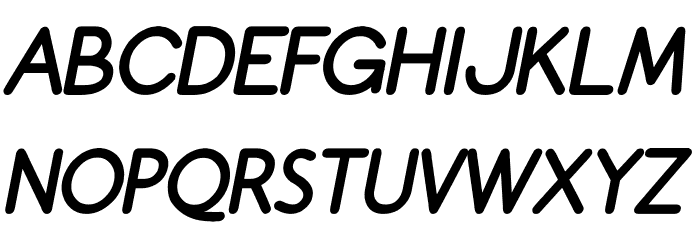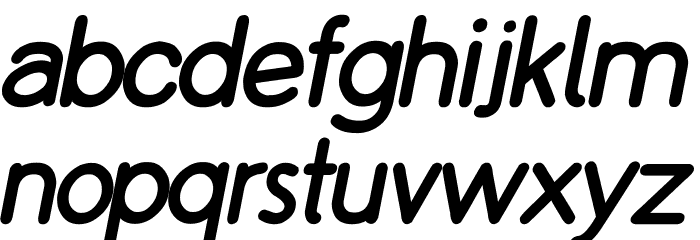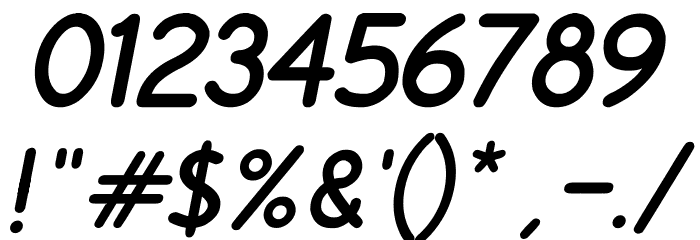
Copilme Bold Italic Font
This font exhibits a bold and italicized style, characterized by smooth, rounded edges and a modern aesthetic. The letters are slightly slanted, giving a dynamic and forward-moving appearance. The strokes are consistent in thickness, providing a uniform look across all characters. The font maintains a clean and approachable feel, suitable for various design applications. Its rounded terminals and lack of sharp angles contribute to its friendly and contemporary vibe. The numerals and special characters are designed to match the overall style, ensuring coherence throughout.
A bold, italicized font with smooth, rounded edges and a modern look.
- Proposed Projects: Ideal for branding, advertising, and digital media projects that require a modern and approachable typeface.
- Use Case: Headlines, Logos, Digital media